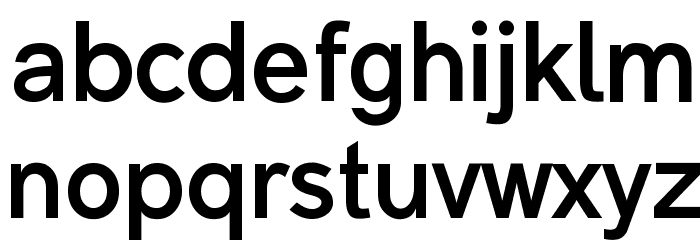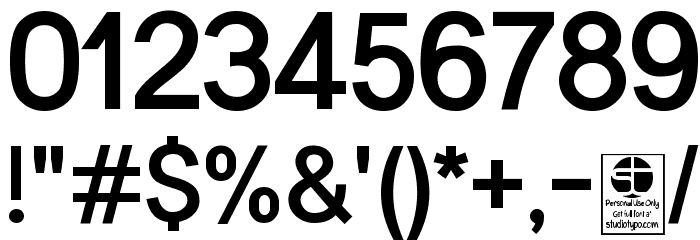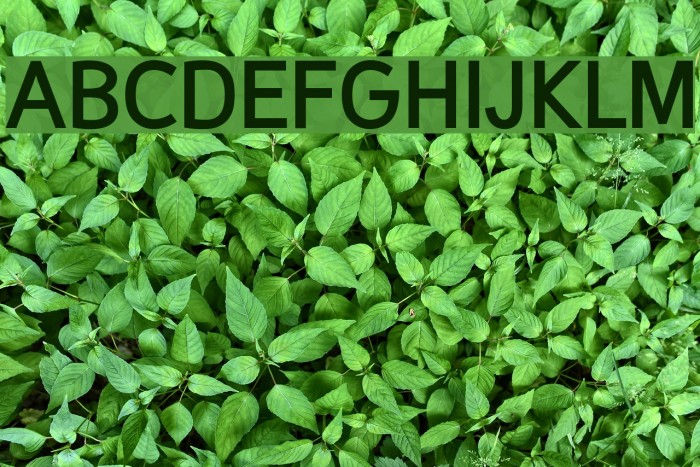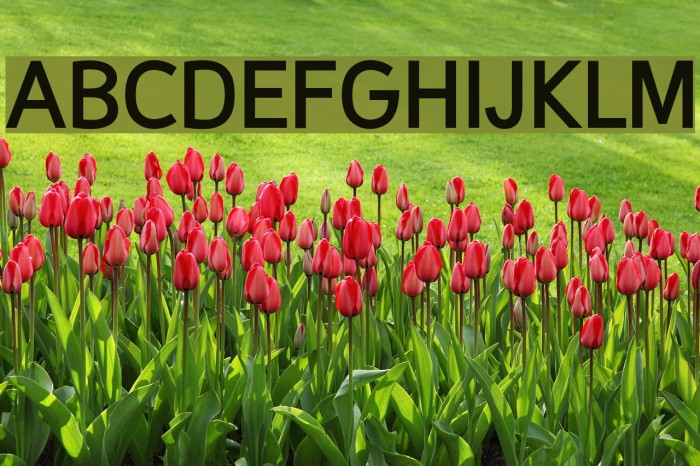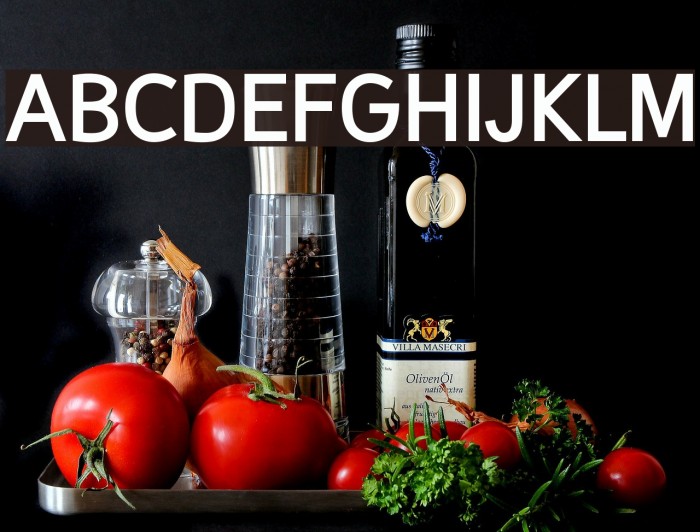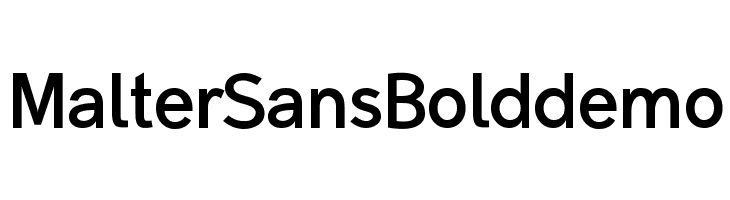
Malter Sans Bold demo Font
This font features a clean and modern sans-serif style with bold, uniform strokes that provide a strong visual presence. The characters are well-proportioned with a consistent weight, making them highly legible across various sizes. The uppercase and lowercase letters maintain a harmonious balance, while the numerals are clear and distinct. The special characters are designed to complement the overall aesthetic, ensuring versatility in usage. The font's simplicity and clarity make it suitable for both digital and print media, offering a contemporary look that is both professional and approachable.
A bold, modern sans-serif font with clean lines and strong legibility.
- Proposed Projects: Ideal for branding, advertising, web design, and editorial layouts.
- Use Case: Headlines, Logos, Digital Media